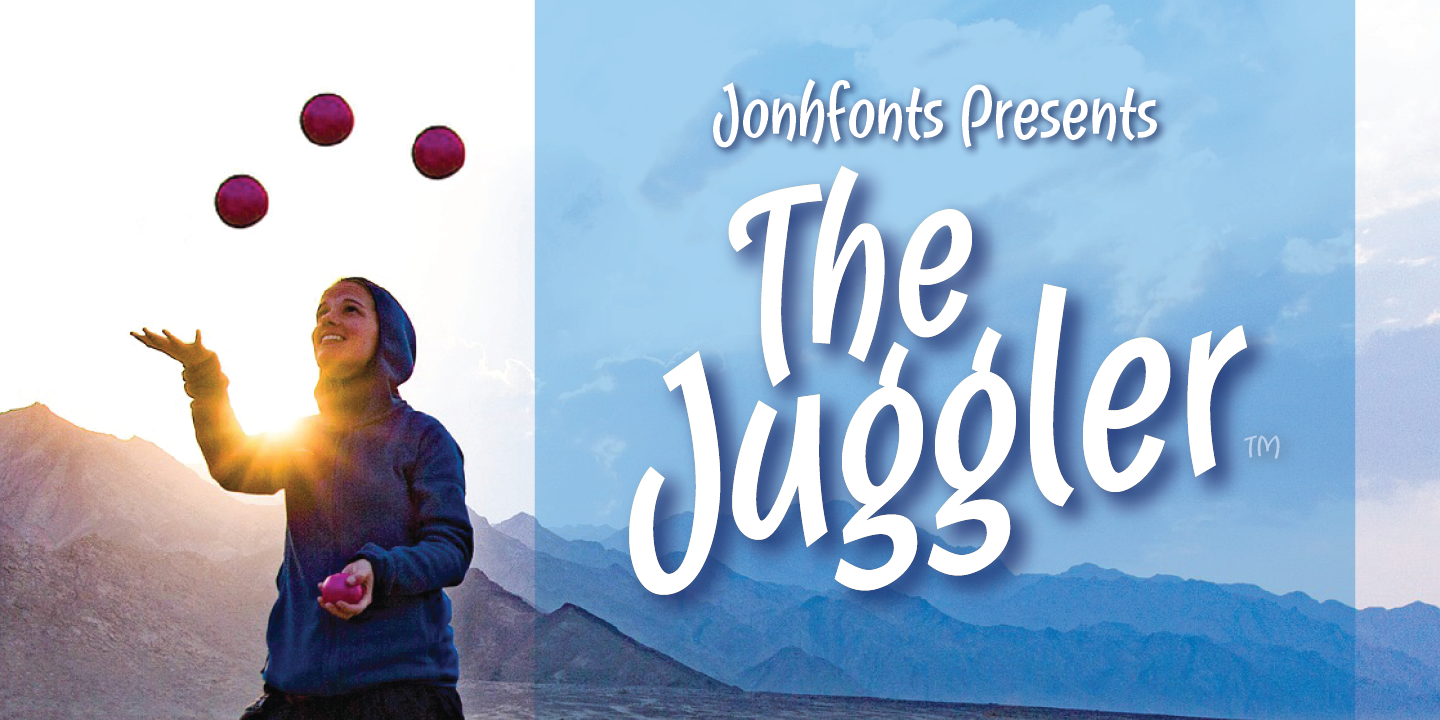
Add playful dynamism to your designs with Juggler Font Free Download – a whimsical display typeface that captures the energetic motion of circus performance. This lively font features bouncy letterforms with subtle rotation, perfect for projects needing carnival charm and kinetic energy.
Why Juggler Font Stands Out
Juggler Font Free Download delivers:
Playfully tilted letterforms
Perfect balance of chaos and readability
Multiple stylistic alternates for variation
Instant big-top excitement
Juggler Font Free Download Technical Features:
Uppercase characters with dynamic angles
Numbers and basic punctuation
Includes bonus circus doodles
Carnival Applications:
Circus event posters
Vintage toy packaging
Children's book titles
Festival promotions
Playful brand identities
Design Tip: Layer with confetti textures and primary colors for maximum carnival impact!